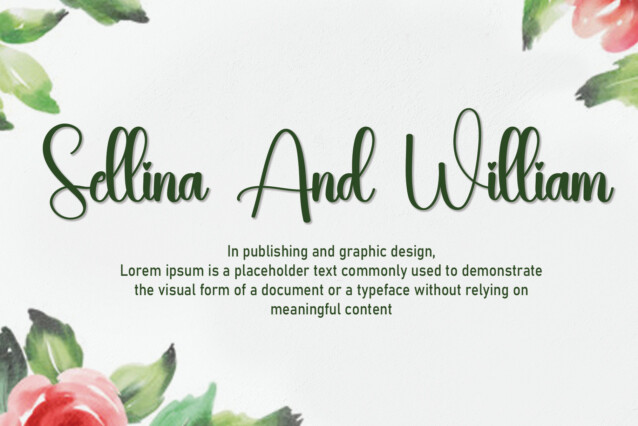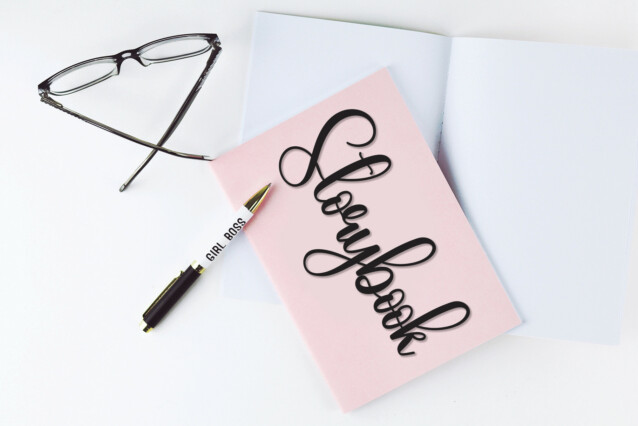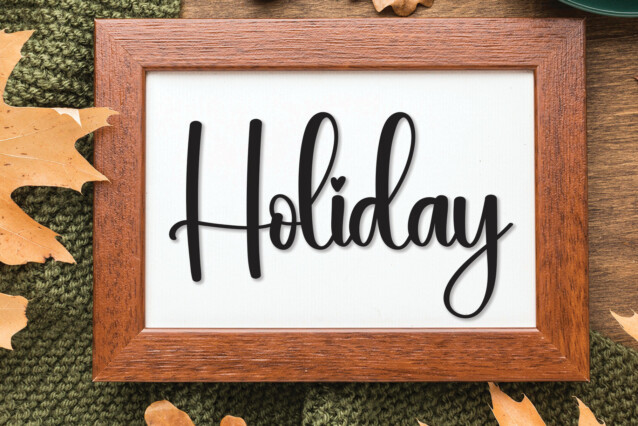
Empty Script Font
Empty Script Font is a cursive handwritten script font ready to add a personal touch to any design you are working on. Elegant and stylish, this typeface will be an incredible asset to your fonts library.